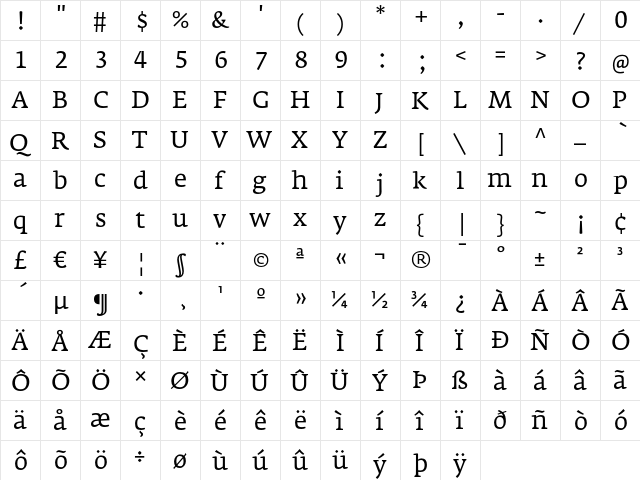
Fedra Serif A Book
Design Context for Fedra Serif A Typeface
Fedra Serif A brings classic typographic sensibility to the table — its serifs and measured letterforms reflect centuries of print heritage.
Pro Tip: Set Fedra Serif A with slightly loose tracking in headlines to let each letterform's detail read clearly at display sizes.